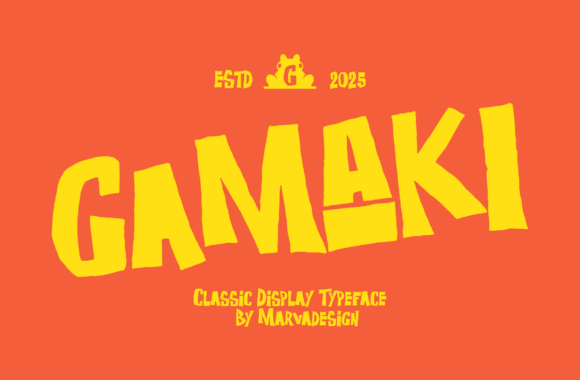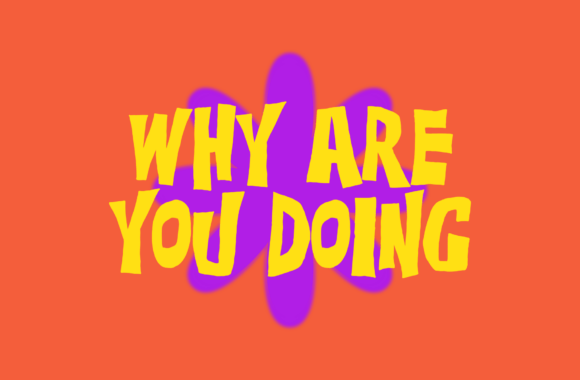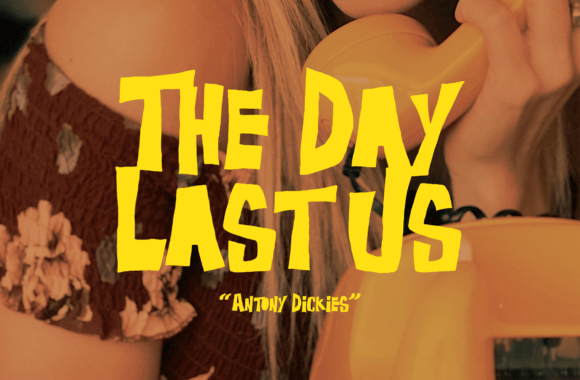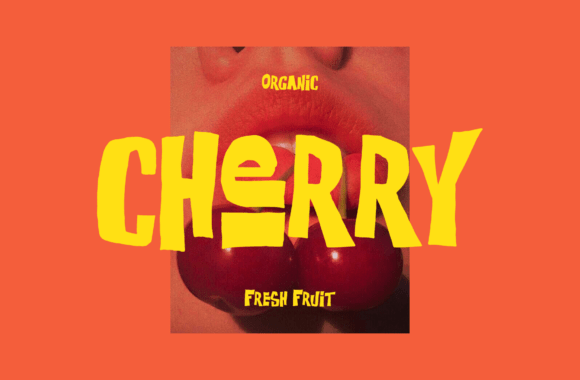
Gamaki Font: A Bold Display Font for Playful Branding & Posters!
About the Gamaki Font
Let us introduce you to Gamaki Font, where timeless design meets modern craftsmanship. **Introducing New Playful Font**
Font **Gamaki** a bold and playful display typeface with a hand-drawn, irregular aesthetic. Its letters have an organic, slightly wobbly structure, giving it a fun and energetic look. The thick strokes and uneven baseline make it ideal for eye-catching headlines, branding, or posters. The font’s exaggerated proportions and rough edges contribute to a casual, lively feel, reminiscent of vintage cartoon lettering or signage.
Gamaki thrives in applications demanding high visual impact, such as large-scale headlines, posters, and branding projects for playful or youthful brands. It works exceptionally well for logos, short taglines, and packaging designs where a hand-crafted, slightly imperfect aesthetic is desirable. Avoid using Gamaki for body text or UI elements; its irregular baseline and weight variations make it unsuitable for extended reading.
Pairing Gamaki effectively requires considering its inherent energy. A clean sans-serif like Open Sans or Lato provides a strong contrast, balancing Gamaki’s playful irregularities with a modern, readable counterpart. For a more vintage feel, pair it with a classic serif such as Garamond or Playfair Display.
Gamaki’s overall personality is best described as bold and friendly, conveying a sense of fun and approachability. Its whimsical nature makes it perfect for projects targeting younger demographics or those emphasizing a casual, energetic brand identity.
Gamaki Font Usage Examples
Gamaki Font Example